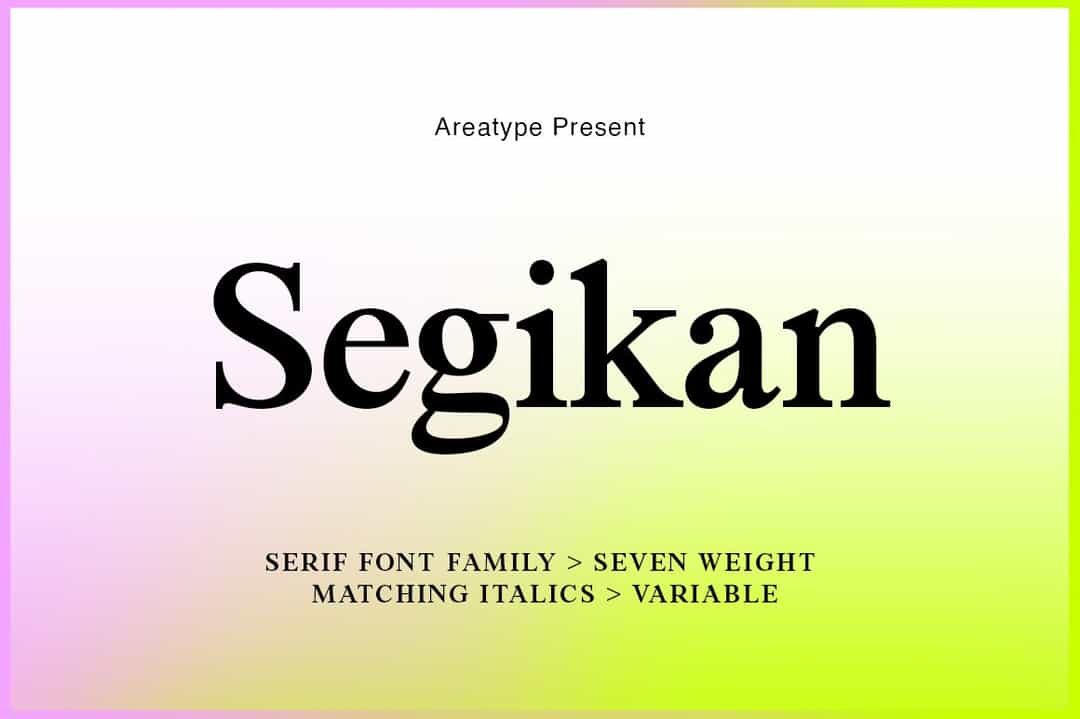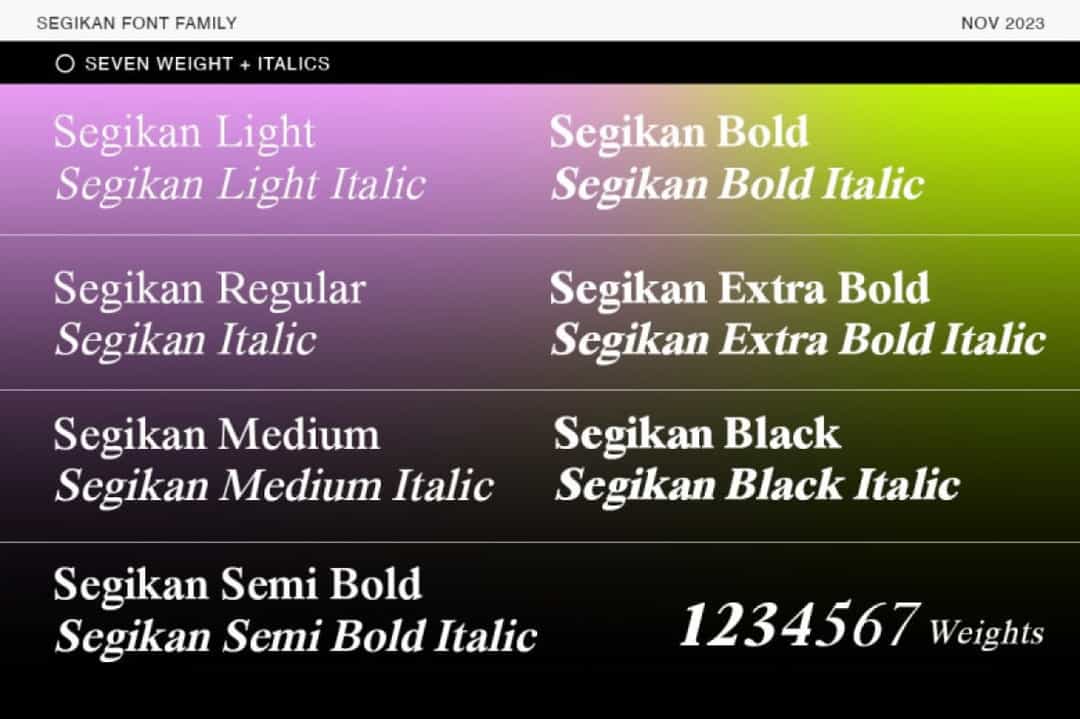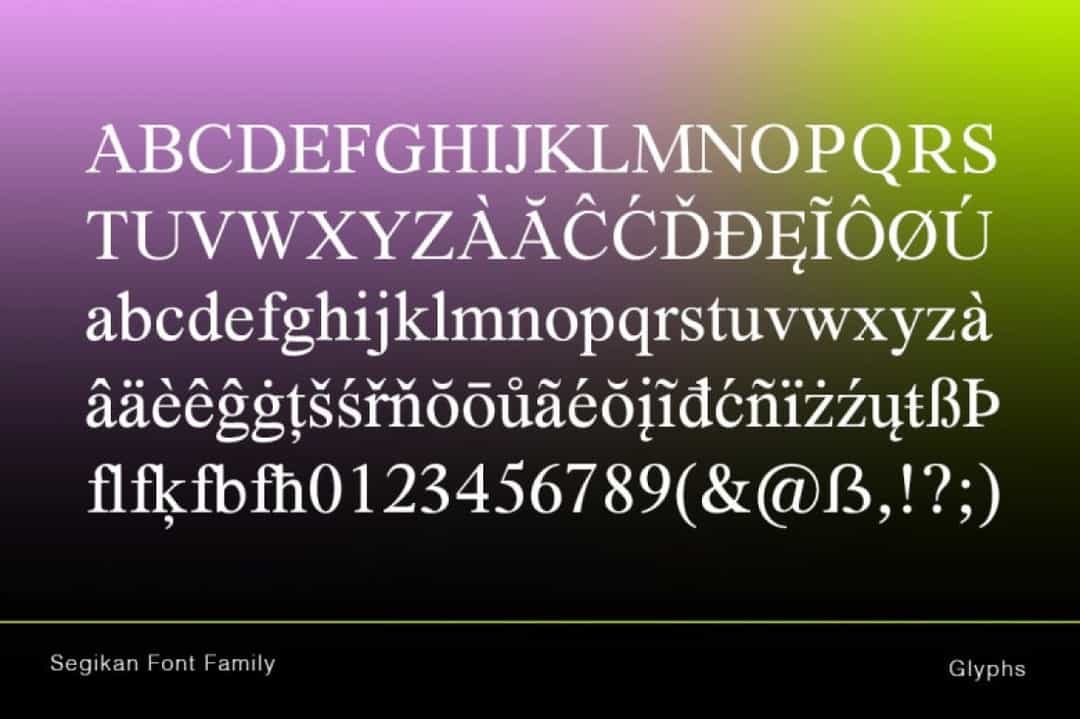
Segikan can be described as an elegant, comfortable serif typeface featuring traditional influences. Designed to improve legibility, Segikan includes 16 upright and slant fonts ranging in colors from black to light styles; one variable font and a variable font as well.